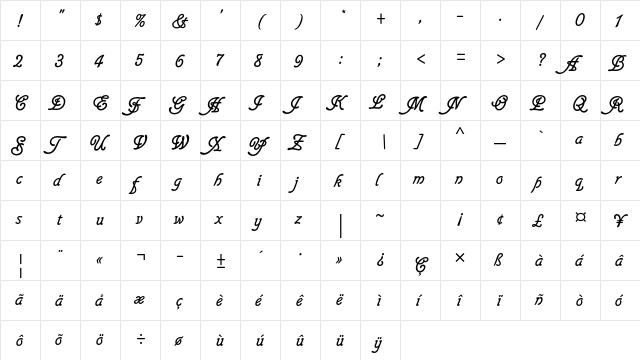
Glastonbury Std Regular
| Designer | Alan Meeks |
Design Context for Glastonbury Std Typeface
Glastonbury Std takes a measured approach to typography — its balanced proportions and neutral character make it a reliable workhorse for both digital and print work.